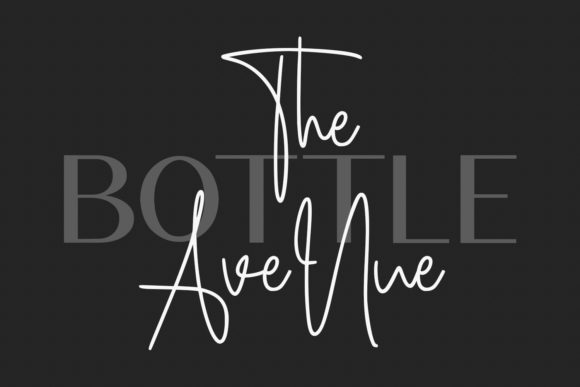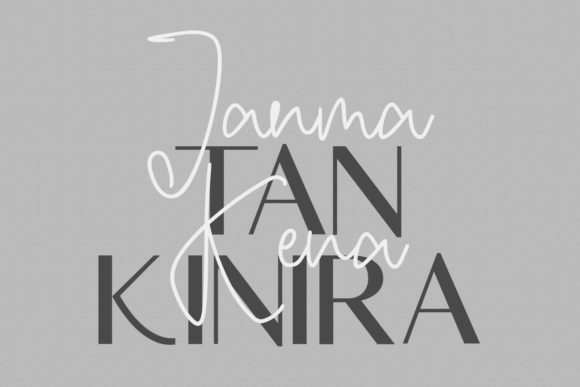
Beauty Beast Duo Font
Beauty Beast is a fancy duo font (sans serif and script). It features medium contrast strokes, fun characters, ligatures and alternates. This font was particularly crafted for those who need a beautiful and refreshing look to their designs.